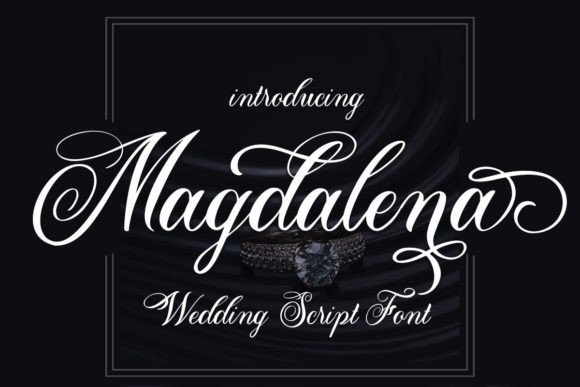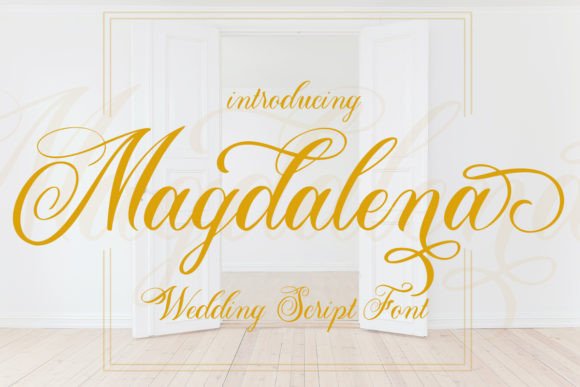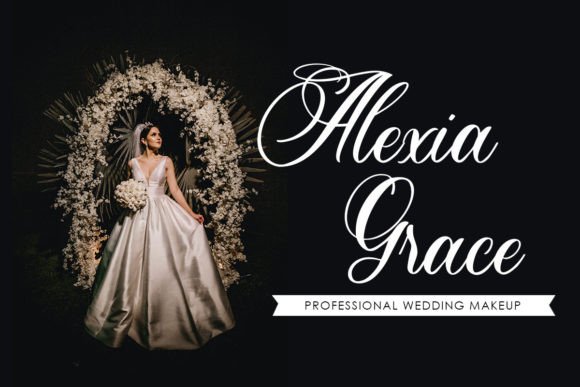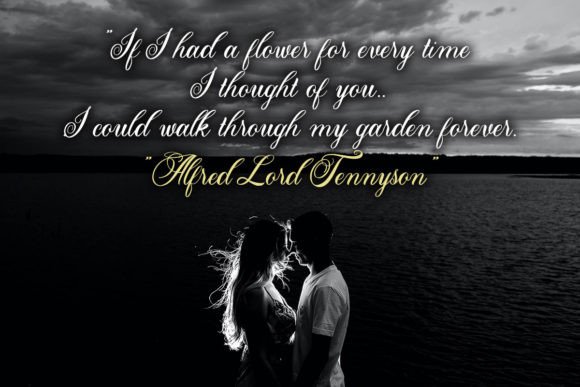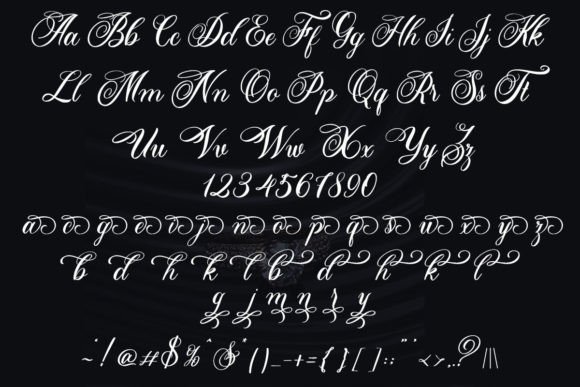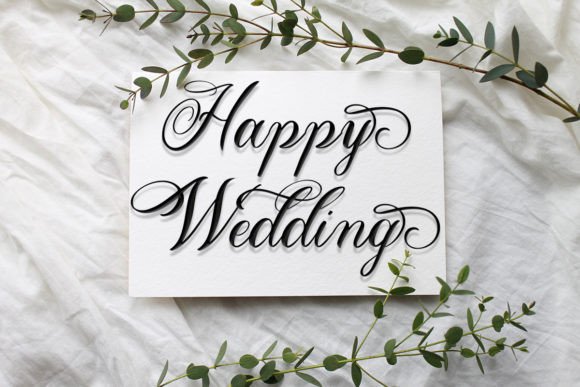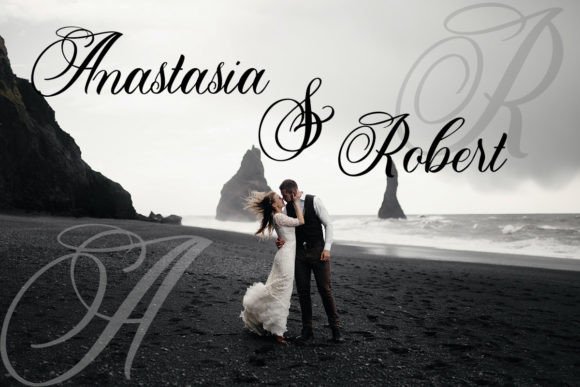
Magdalena Font
About Magdalena Font
Magdalena is a romantic and sweet calligraphy typeface, where each character gracefully dances along the baseline, creating a sense of fluidity and elegance. This font is designed to infuse a touch of luxury into any design project, adding a spark of sophistication and charm. One notable feature of Magdalena is its PUA encoding, offering convenient access to a plethora of amazing glyphs and ligatures.
The romantic allure of Magdalena makes it a perfect choice for various design projects that demand a touch of refinement. Whether you’re creating wedding invitations, love notes, or any design that requires a romantic and elegant aesthetic, Magdalena delivers with its gracefully crafted characters.
The fluidity of Magdalena’s design lends itself well to projects where a sense of movement and delicacy is desired. The calligraphy style brings a personalized and artistic touch, making it an ideal font for adding a luxurious spark to branding, invitations, and other creative endeavors.
With the convenience of PUA encoding, exploring and incorporating the various glyphs and ligatures becomes a seamless process. This feature enhances the font’s versatility, allowing you to customize your designs with ease and precision.
Incorporate Magdalena into your design toolkit to elevate your projects with its romantic and sweet calligraphy. Watch as it transforms your creations, infusing them with a sense of luxury and sophistication. Let Magdalena be the font that adds a touch of romance and charm to your design projects, making them truly enchanting and memorable.